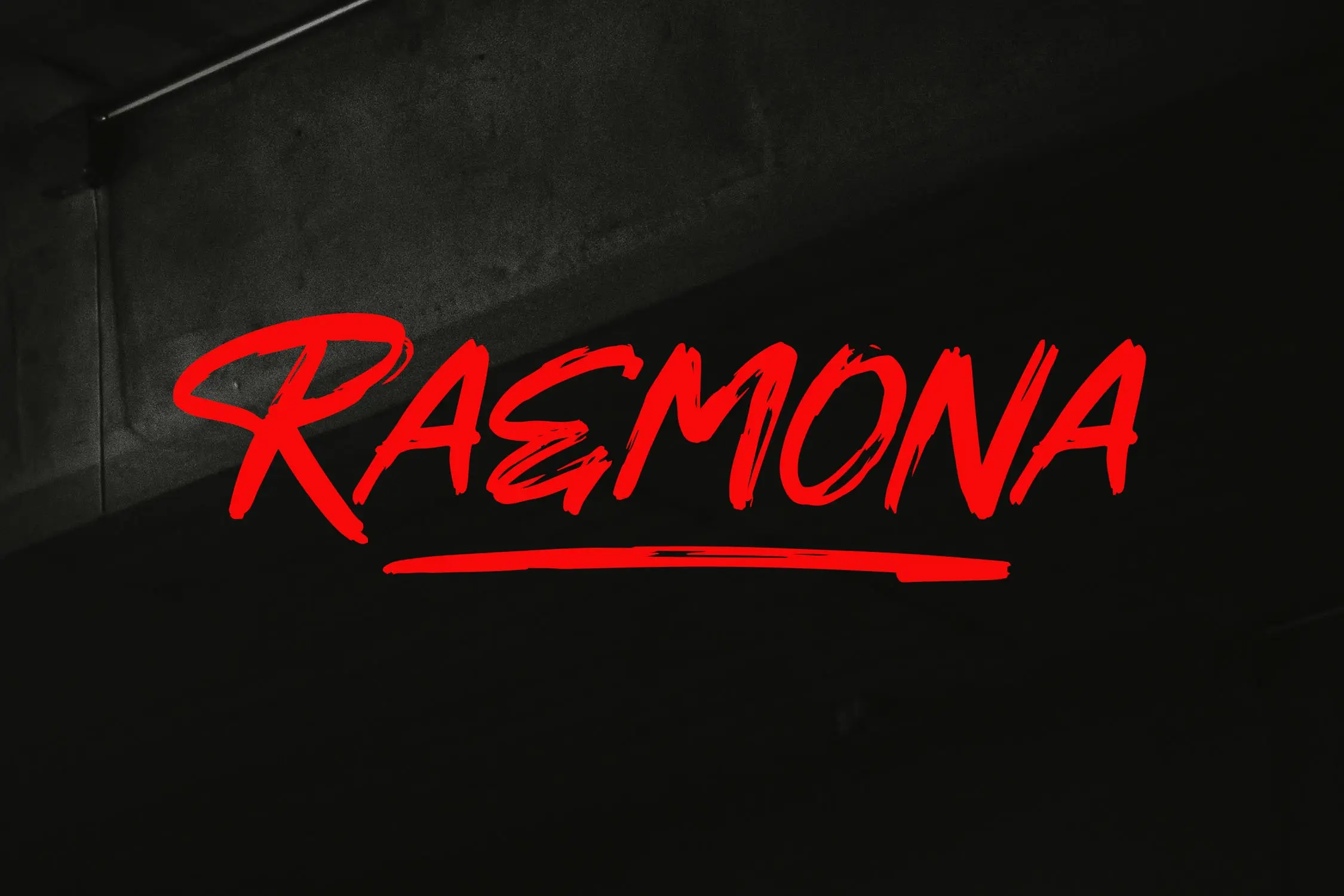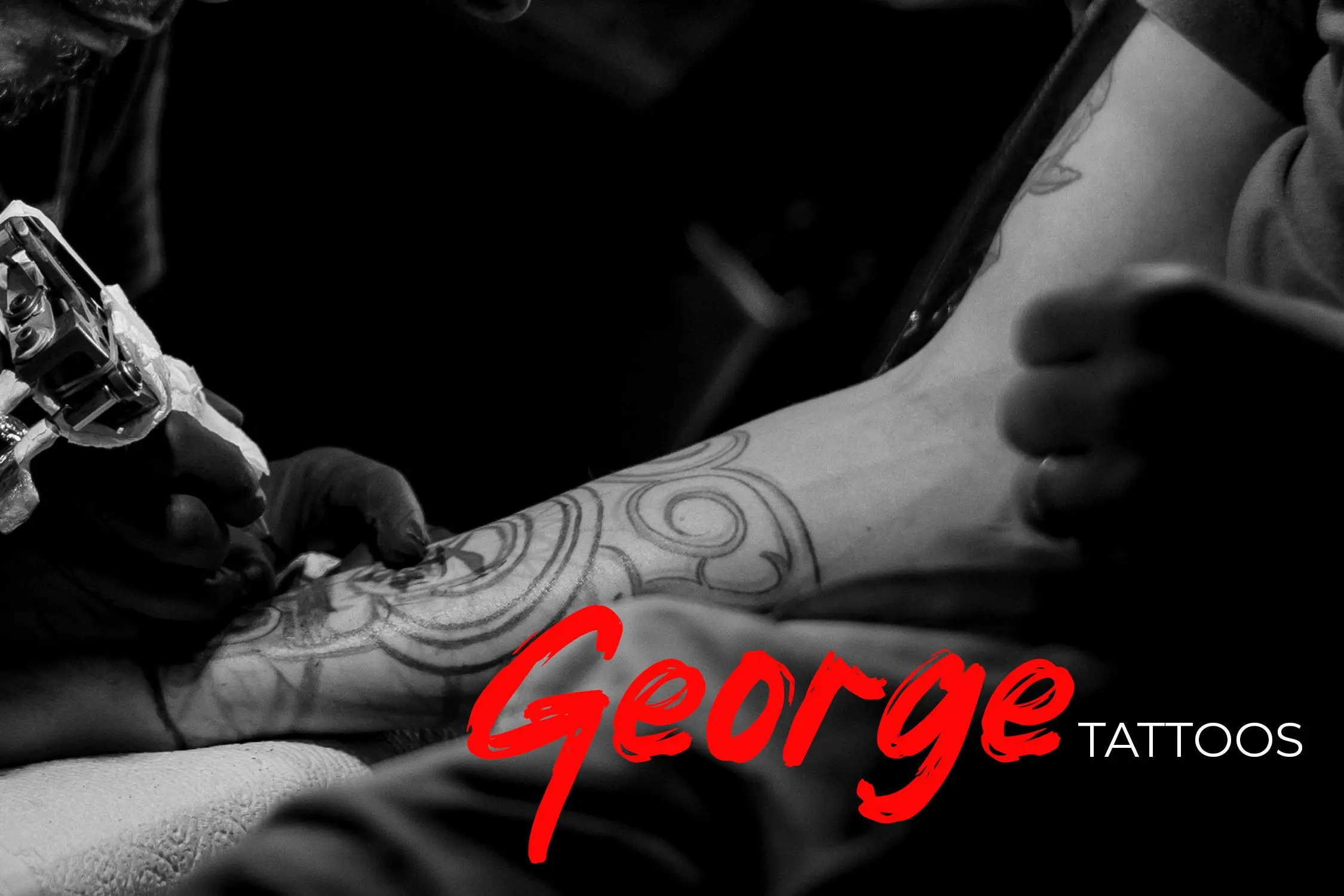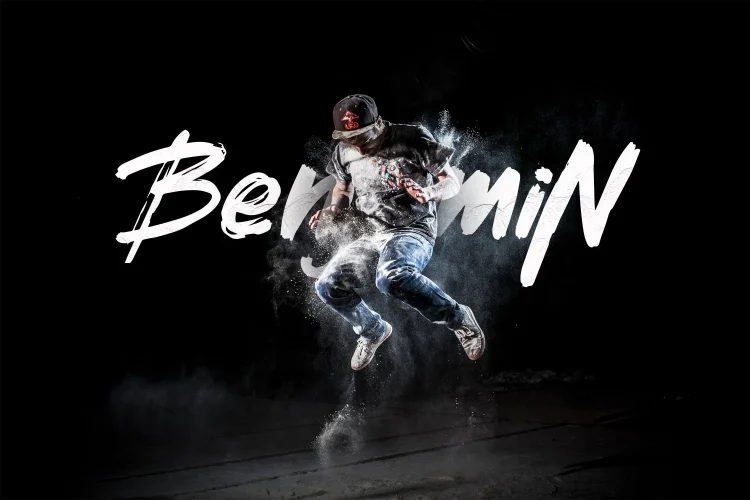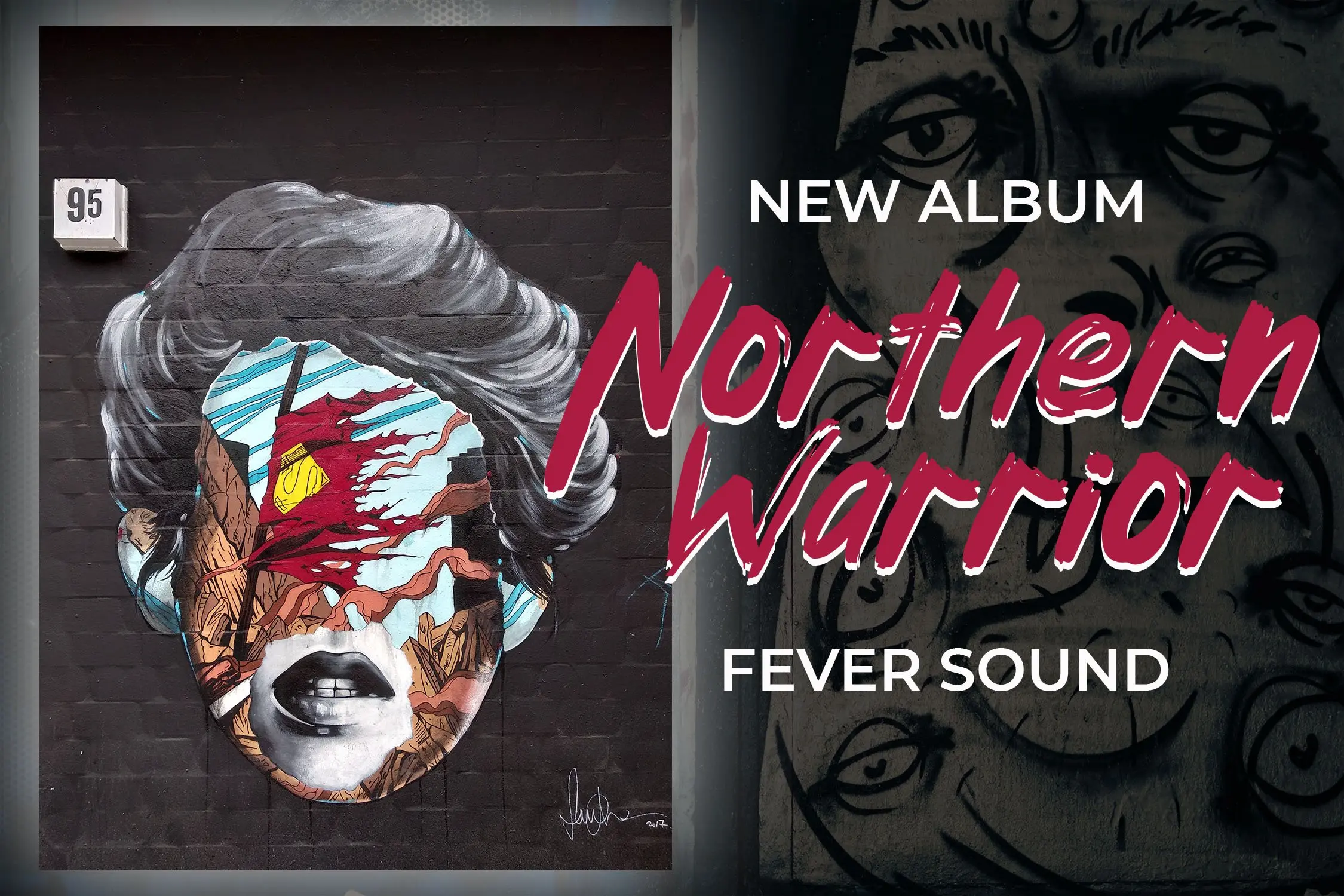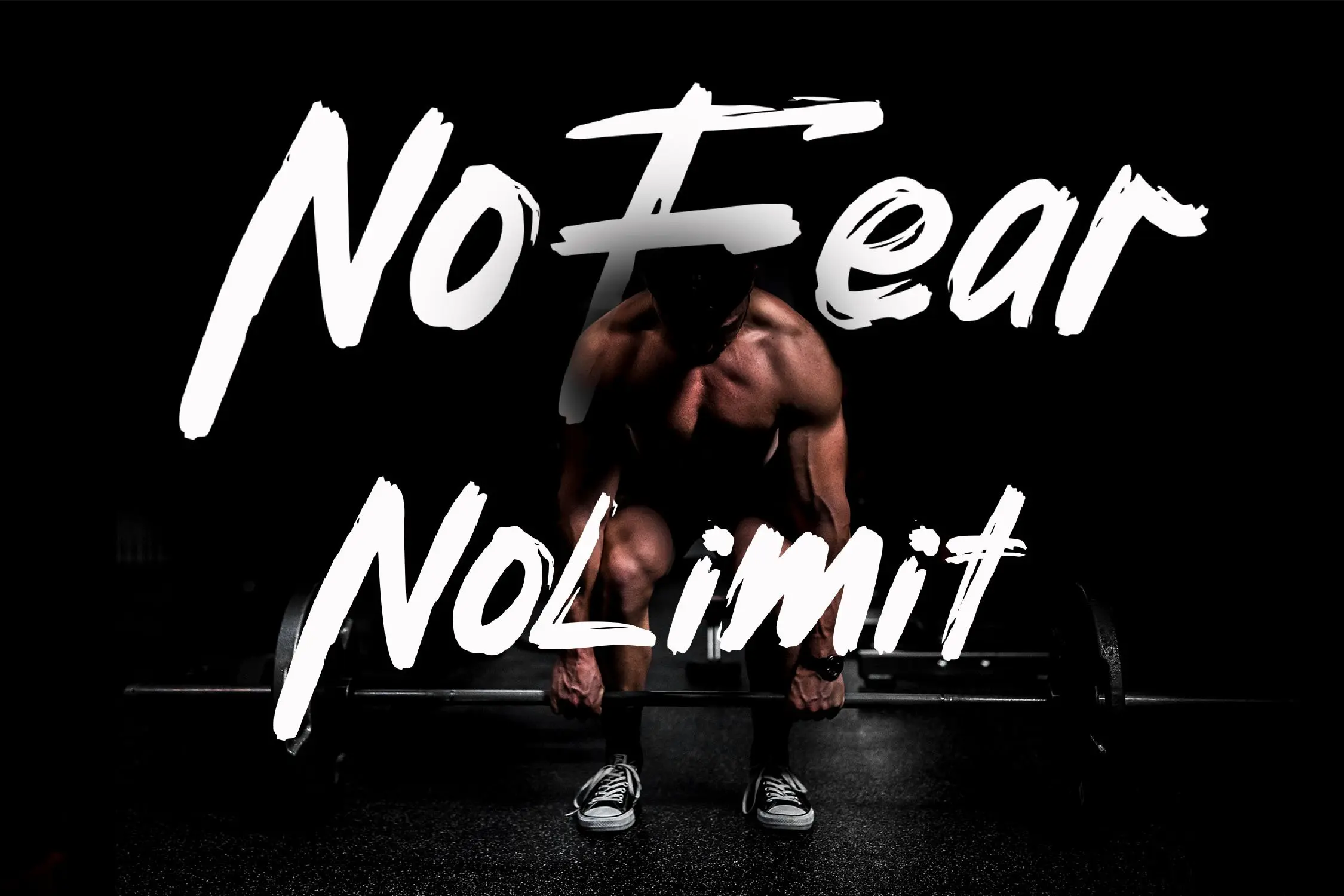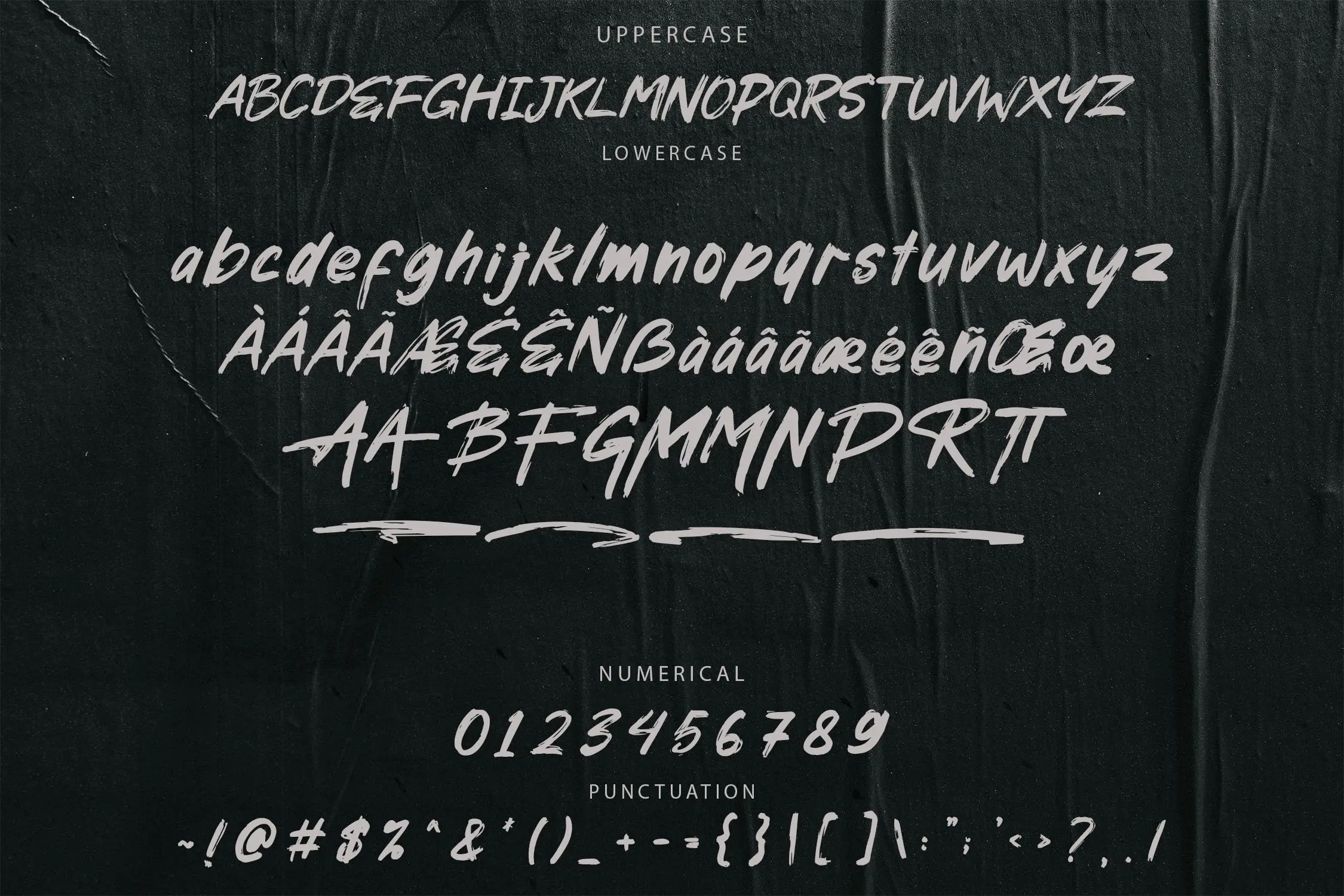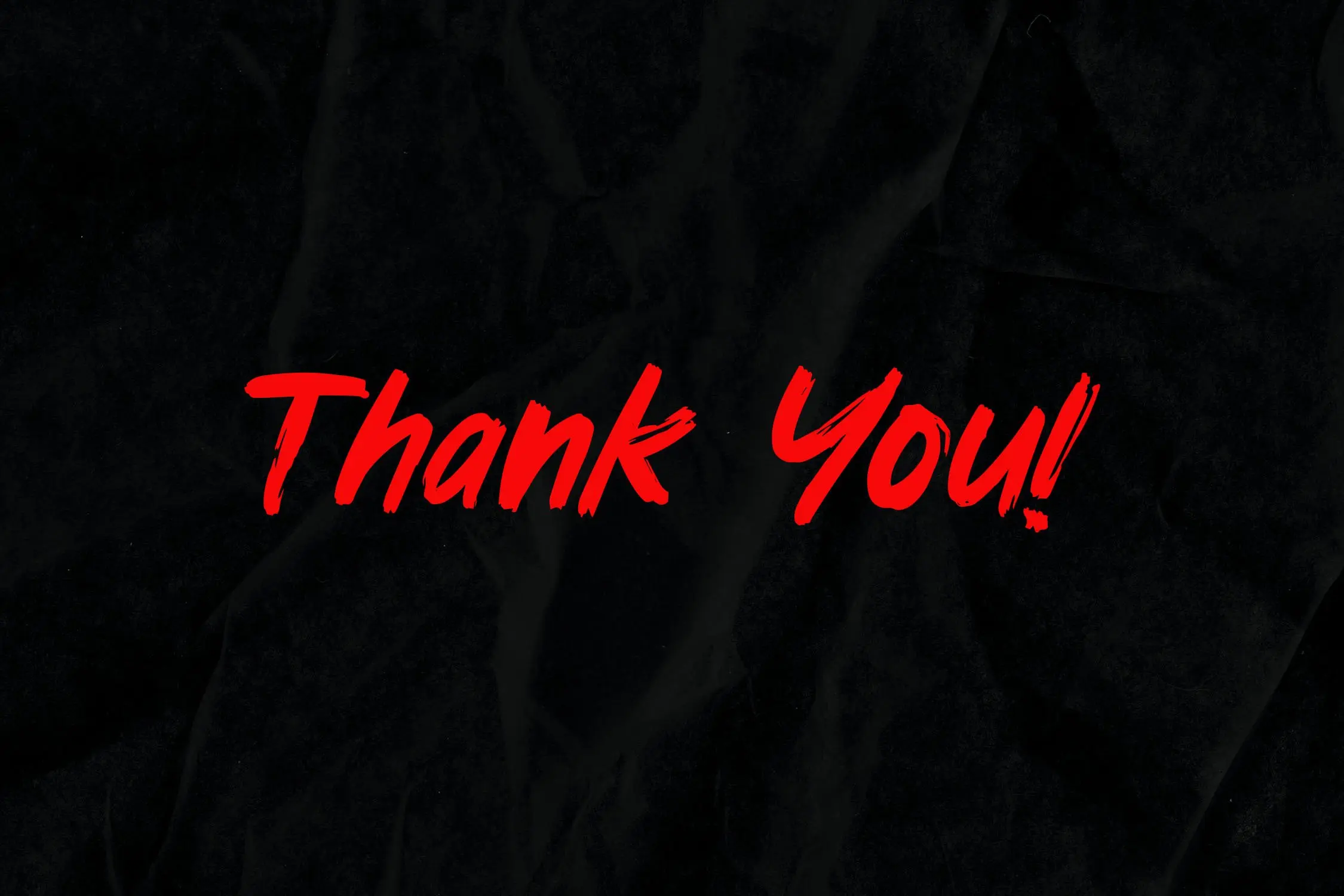
RAEMONA
RAEMONA – Bold and Rough Brush Font
Introducing RAEMONA, a bold brush font with a rugged, textured style that commands attention. Featuring uniquely shaped characters, this font is perfect for adding a dynamic and edgy touch to your designs. Ideal for posters, branding, packaging, and more. RAEMONA enhances the visual appeal of any project with its bold and rough aesthetic.
Font Features:
• Includes ligatures, stylistic alternates, and swashes
• Multilingual support for diverse applications
Make your designs stand out with the bold and rugged look of RAEMONA brush font!